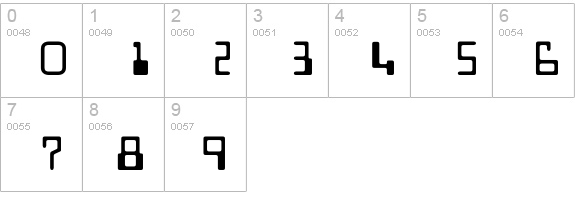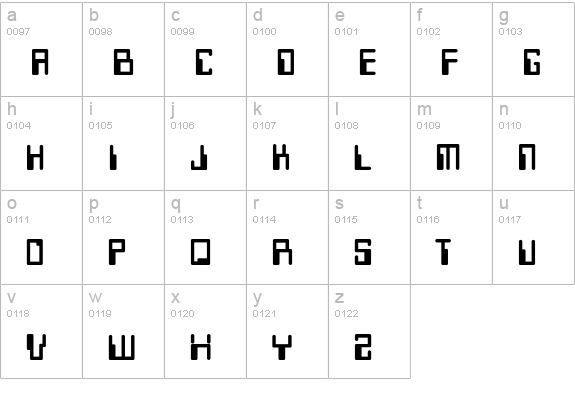
MicrFont Font Details
Introducing MicrFont - a sleek and modern font that combines elegance with simplicity. With its clean lines and sharp edges, this font is perfect for adding a touch of sophistication to any design project. Whether you're creating a professional presentation or designing a stylish logo, MicrFont is sure to make a statement. The best part? MicrFont is available for free download at FontsMarket.com. That's right, you can add this versatile font to your collection without spending a dime. So why wait? Elevate your designs with MicrFont today and see the difference it can make.